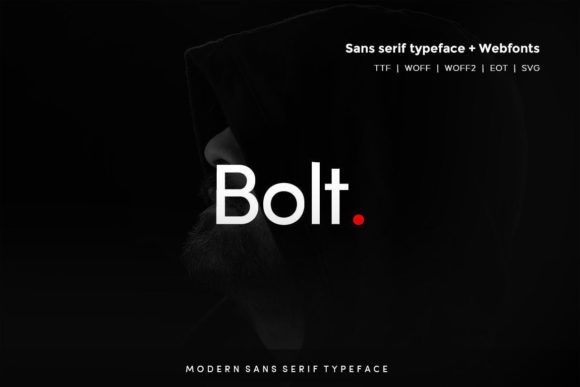
Bolt Sans is a modern and Minimal Sans Serif typeface, Bolt Sans can keep the minimalism at its level best and is a Perfect choice for Creative and Classic Typography Designs. The pack includes TTF and Web Fonts (all EOT, SVG, TTF, WOFF included).